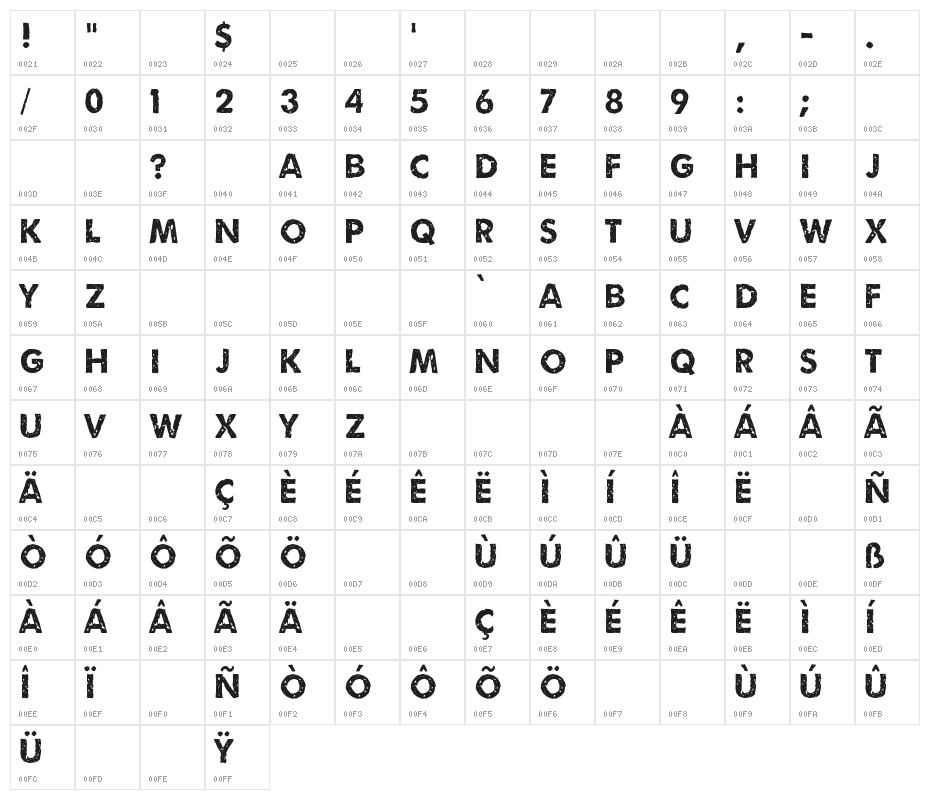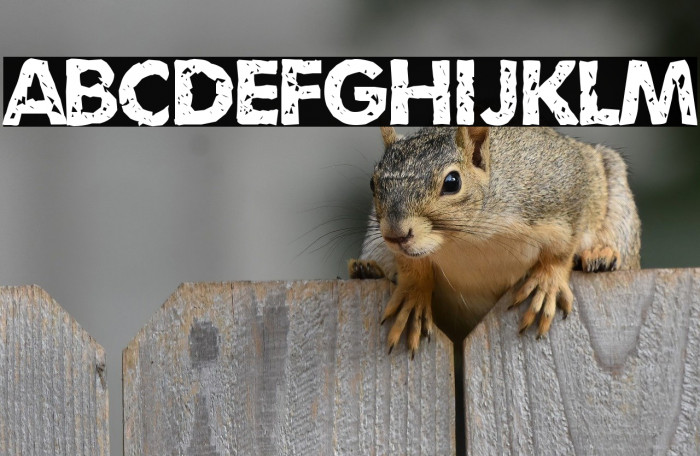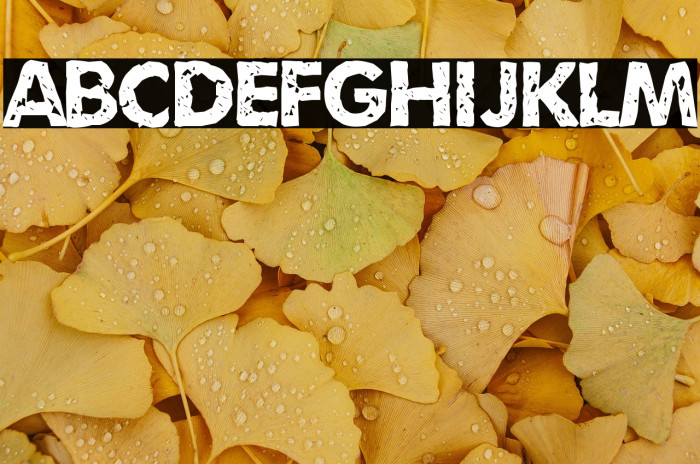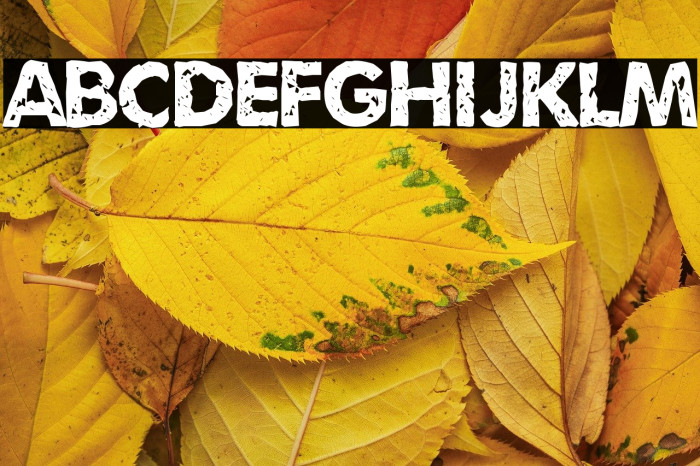
Umbrage Font
Umbrage Description
This font features a bold and rugged design with a distressed texture that gives it a worn, vintage appearance. The characters are thick and blocky, with irregular edges that add a sense of dynamism and energy. The uppercase and lowercase letters maintain a consistent style, while the numbers and special characters follow the same distressed aesthetic. This font's unique texture makes it stand out, providing a handcrafted feel that is both eye-catching and distinctive.
| Proposed Projects | Ideal for posters, album covers, branding projects, and any design that requires a bold, vintage aesthetic. |